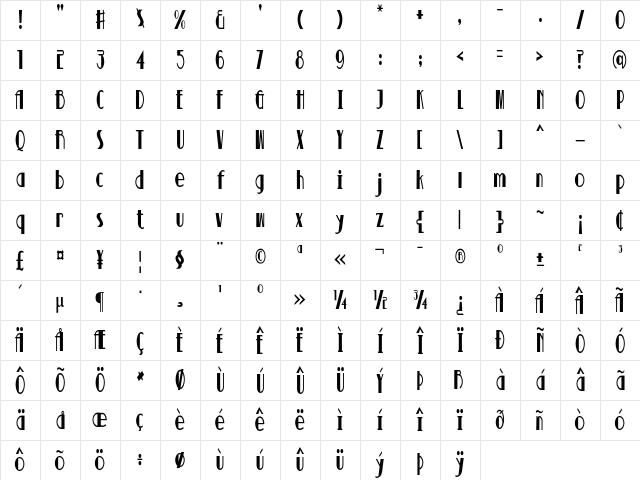
Complete Parisian Nights Condensed Regular glyph index. Displaying only characters natively supported by Parisian Nights Condensed Regular font.
Parisian Nights is a composed and adaptable typeface that performs quietly and consistently across a wide range of design contexts. Its narrow stance lets it pack a punch even in space-constrained designs.